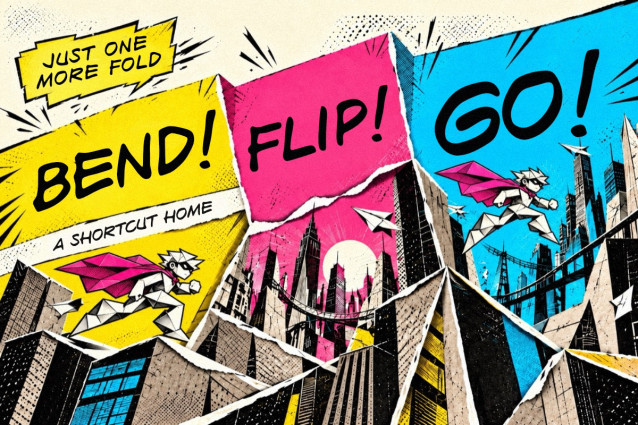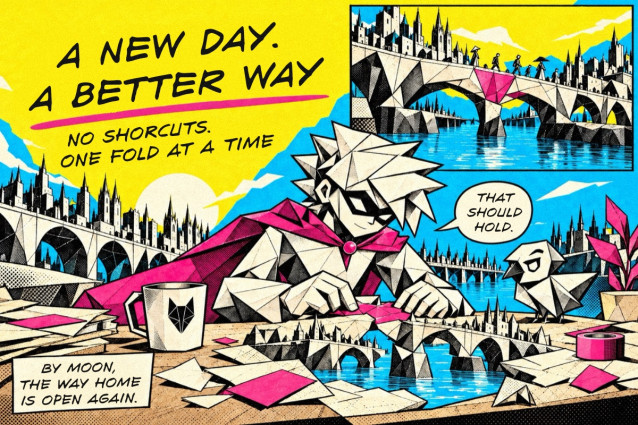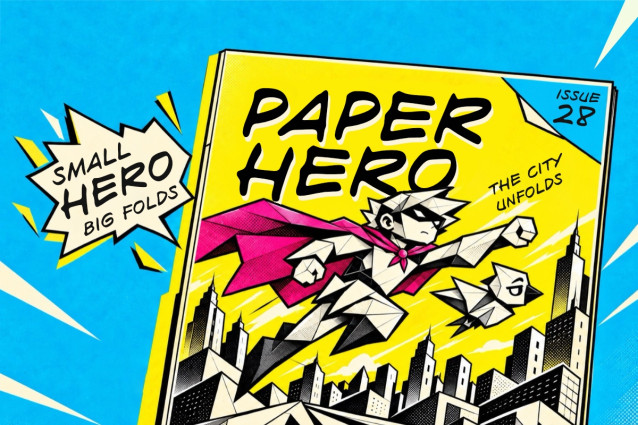
Paper Hero Font
Paper Hero is a hand drawn comic font with a quick, slanted rhythm and strokes that shift from thick to thin. Its rounded, irregular shapes give words the energy of lettering drawn straight into a comic panel. Both uppercase and lowercase inputs produce capital-shaped letters, but each has a different form, letting you vary repeated letters while keeping the same visual voice.
Created by Fonthentic, Paper Hero suits character dialogue, punchy sound effects, comic covers, and illustrated headlines. Use its changing letterforms to give a short line a little more movement.